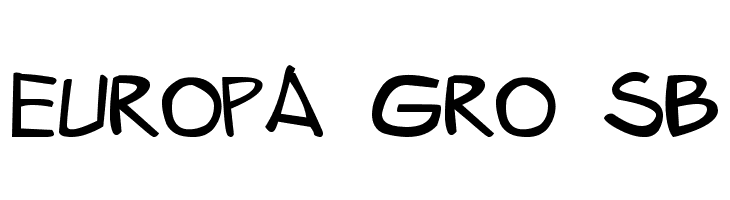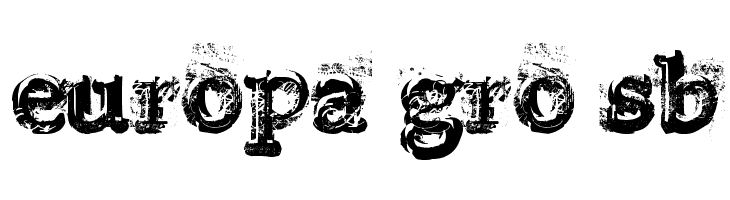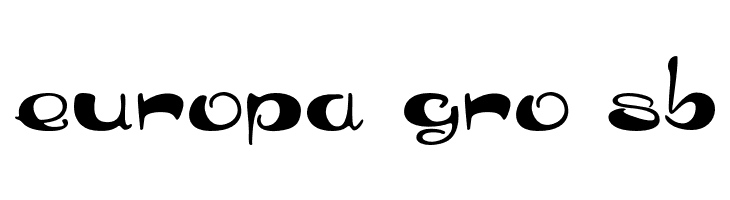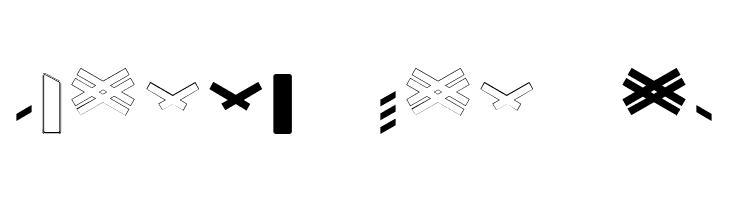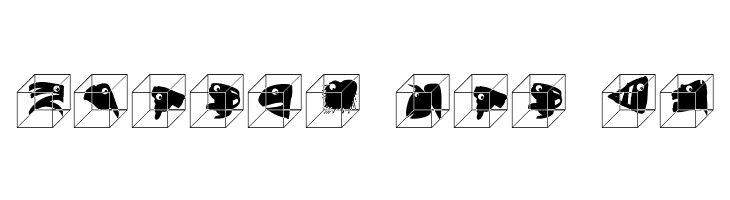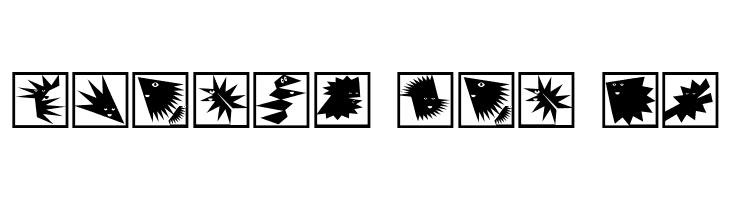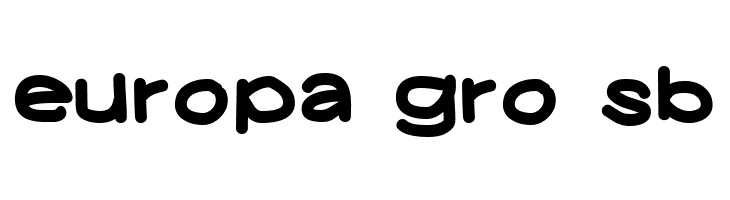
• YUKAFONT _SMILE
( Billy Argel - billyargel.com/ )
A playful, rounded font with a smooth, flowing design and consistent stroke thickness.
• Yukon Gold
( Fonts by Gyom Seguin - last-soundtrack.daportfolio.com )
A bold, distressed font with a vintage, weathered appearance.
• YuleLikeThisNF
• YY Uncial Most Irish Molded
• ZagzagHeadsTwo
A bold, abstract font with jagged, geometric shapes enclosed in squares.
• Zeichen Dreihundert Alt
Bold, geometric pictograms for road and traffic signage.
• Zeichen Dreihundert Alt
A utilitarian symbol set based on German traffic and road signage.
• Zenteikei Regular
A playful, high-contrast font with an artistic and hand-drawn appearance.
• ZeroGene
( Fonts by Press Gang Studios - Andeh Pinkard - www.pressgang-studios.com )
A playful, hand-drawn font with bold, dynamic strokes.
• ZooCages
A playful and decorative set of animal illustrations within cubes.